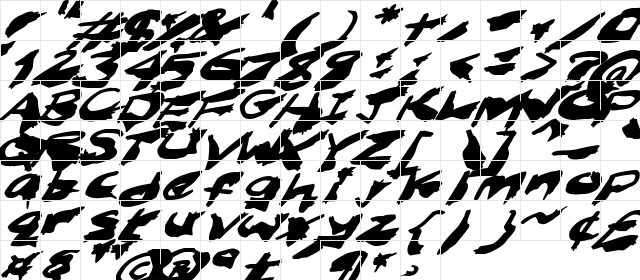
Nightmare Ink Italic
Design Context for Nightmare Ink Typeface
Nightmare Ink is a composed and adaptable typeface that performs quietly and consistently across a wide range of design contexts. The dynamic lean of this cut emphasises speed and emphasis in any layout.
Pro Tip: Try Nightmare Ink for annotation and caption copy alongside an upright companion — the contrast in angle creates a dynamic but ordered typographic system.